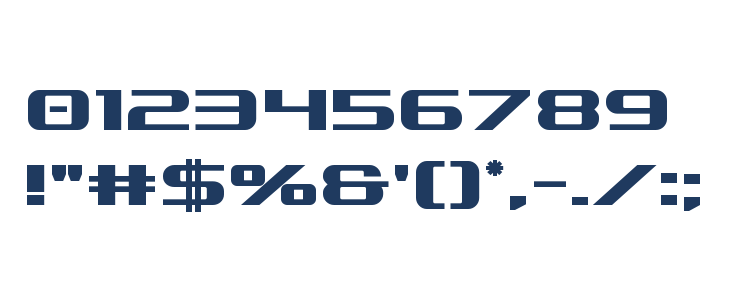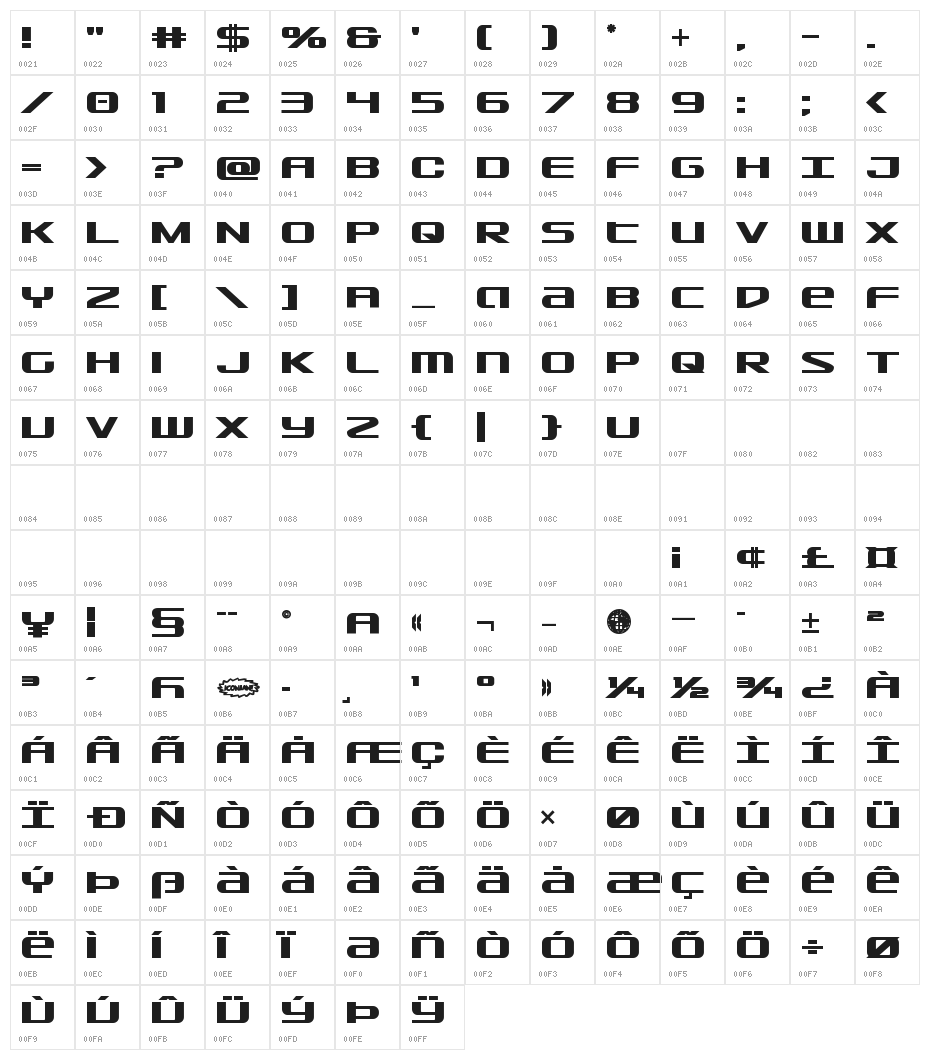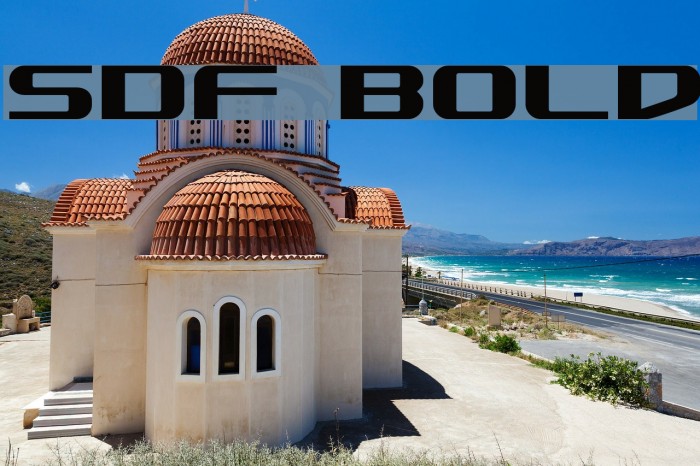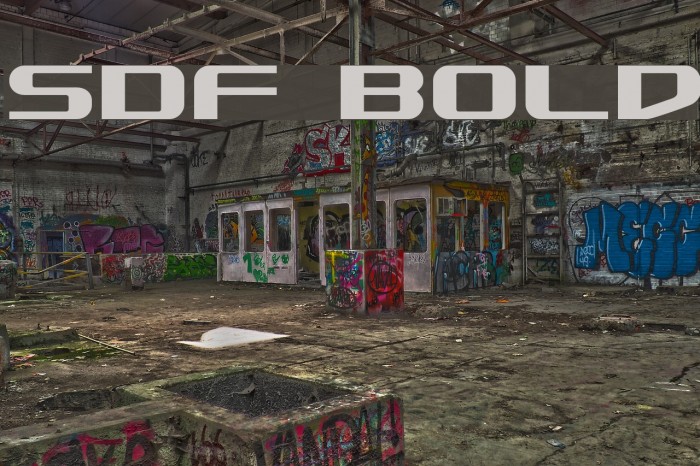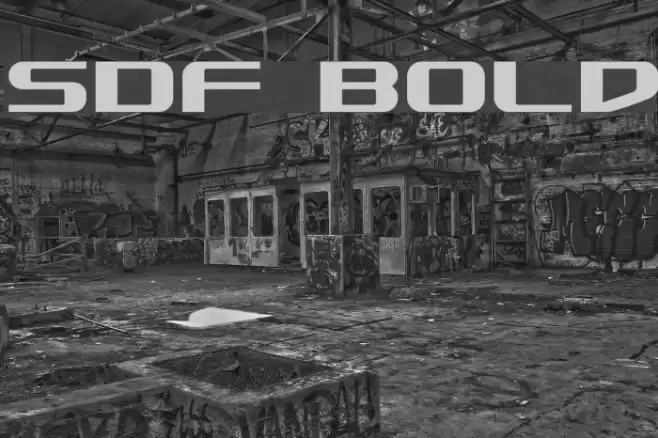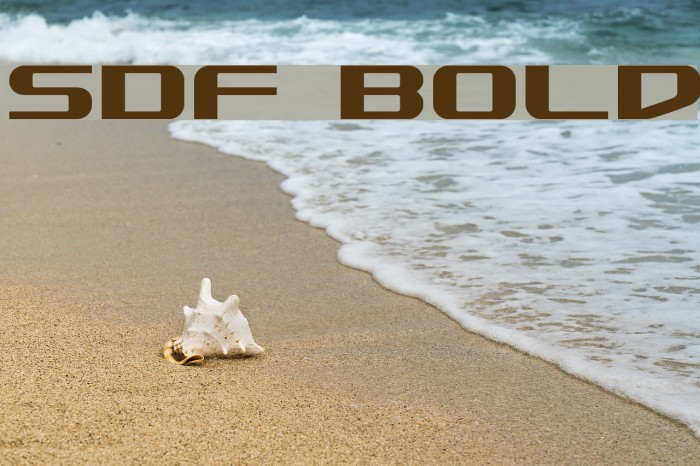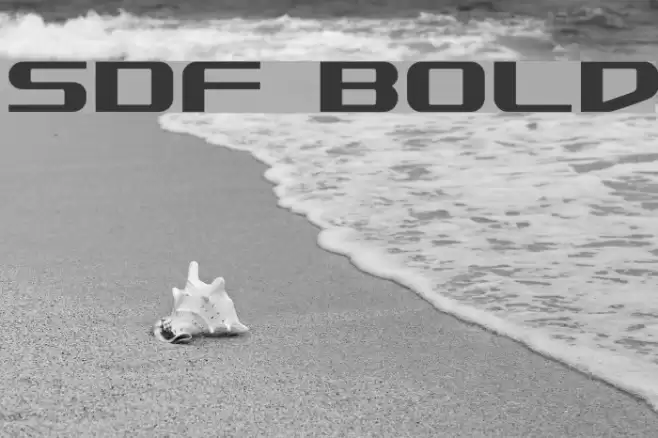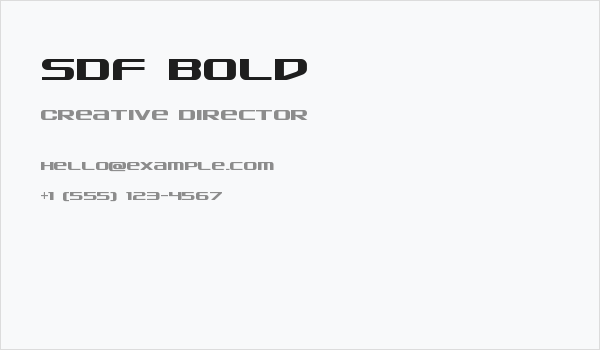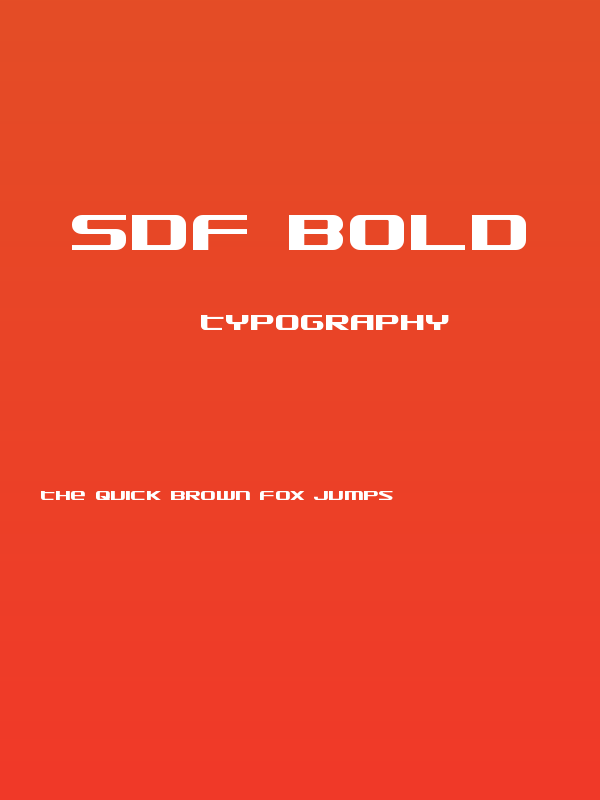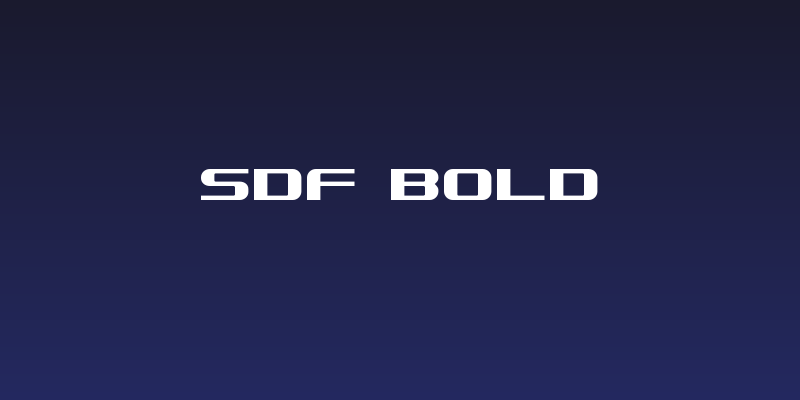
SDF Bold Font
SDF Bold Description
This font exhibits a bold and futuristic design with a geometric structure. The characters are constructed with sharp angles and straight lines, giving them a modern and tech-inspired appearance. The uppercase and lowercase letters maintain a consistent style, with a uniform height that enhances readability. The numerals are distinct and align well with the overall aesthetic. Special characters are designed to match the boldness and angularity of the alphabet, ensuring a cohesive look across all glyphs. This font is ideal for projects that require a strong, impactful visual presence.